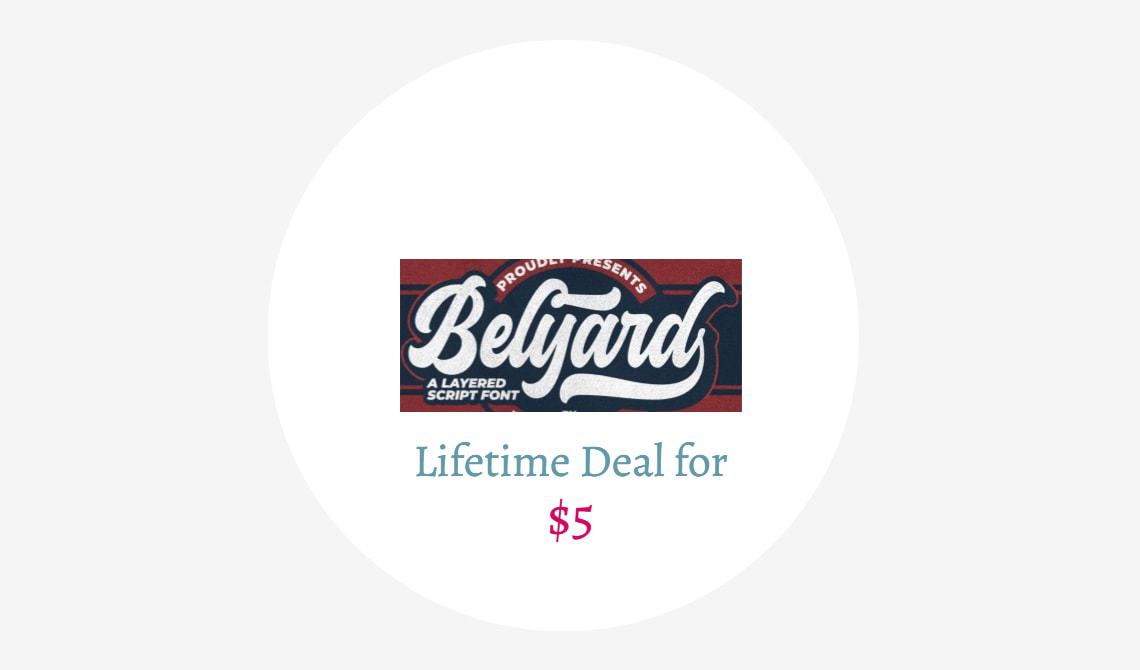
Belyard Font Deal
A bold script font was created especially for logo and display design.
Bold, script typeface.
OpenType Features - alternates, ligatures, swashes and more.